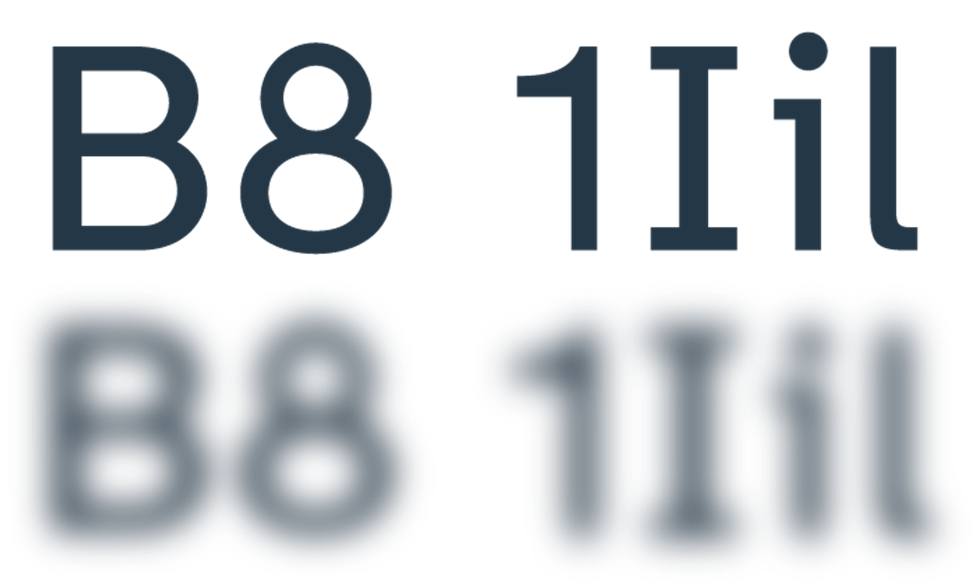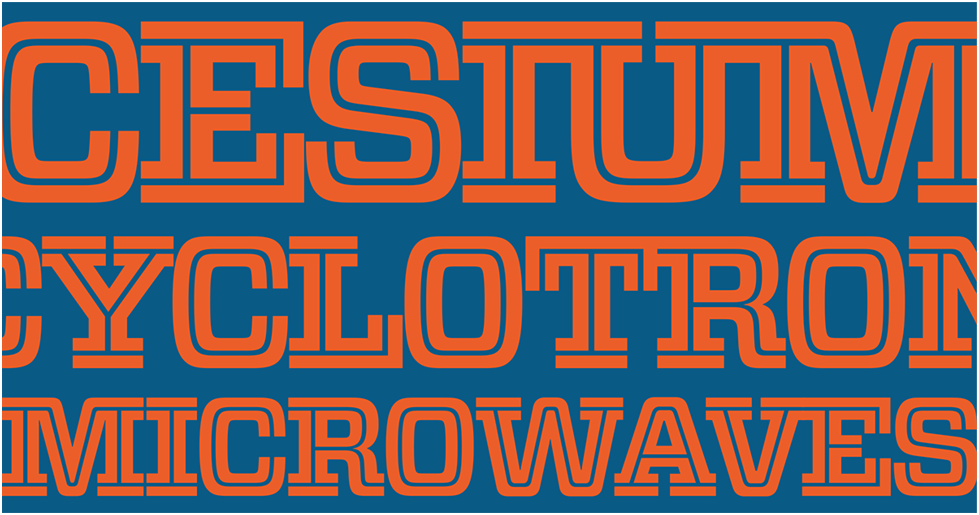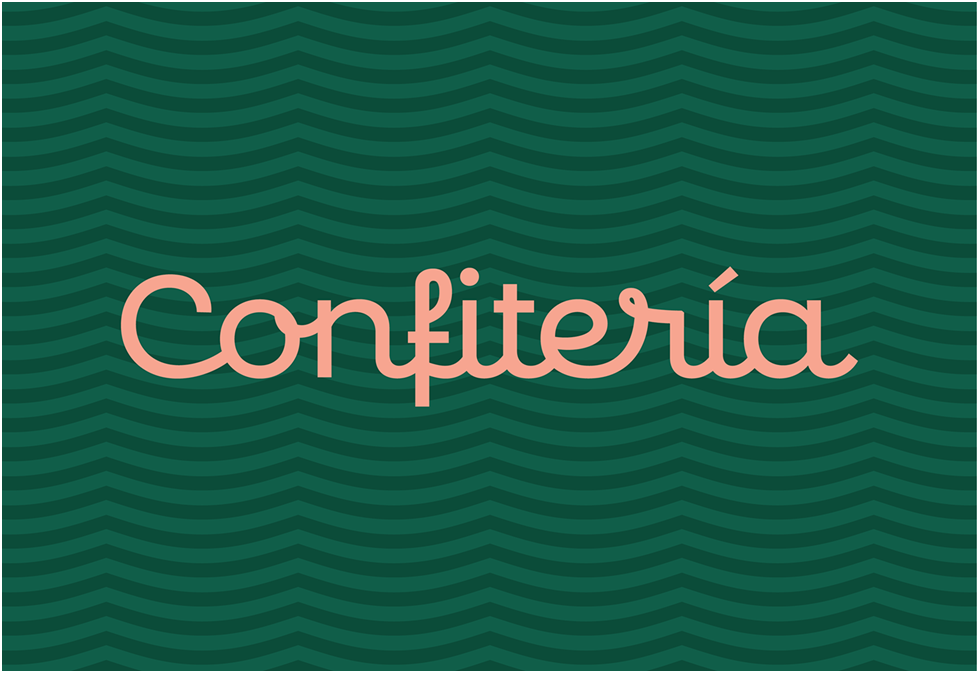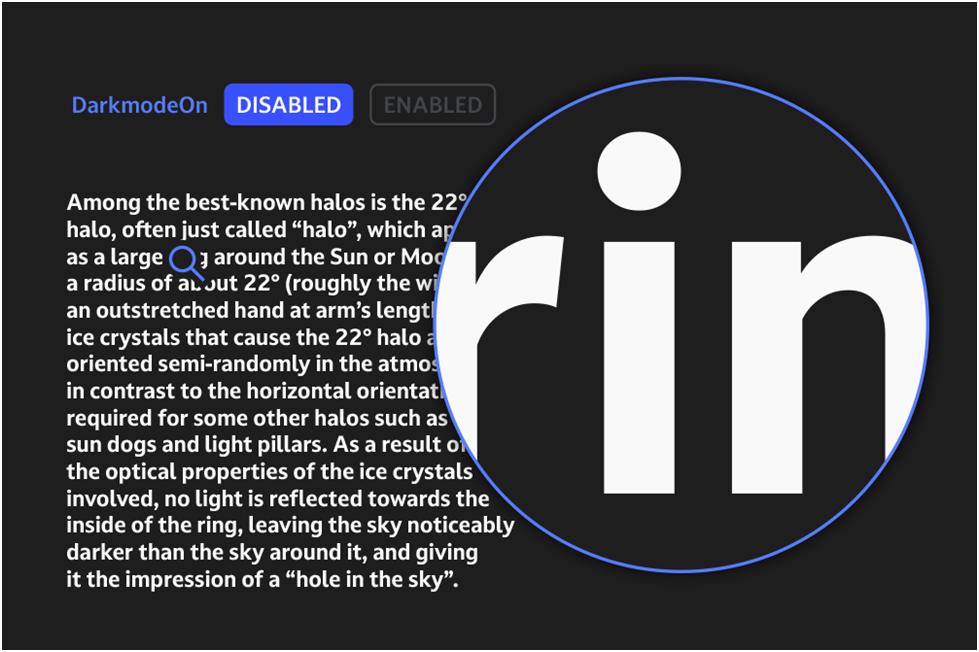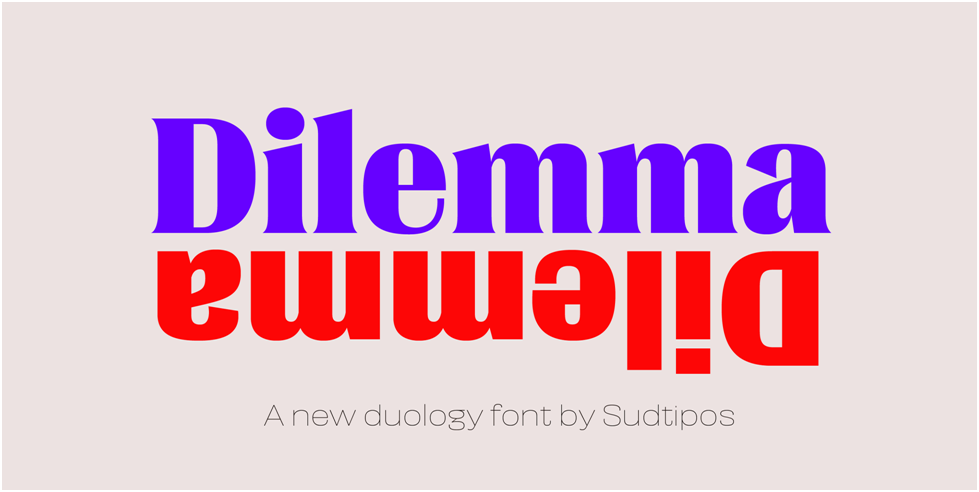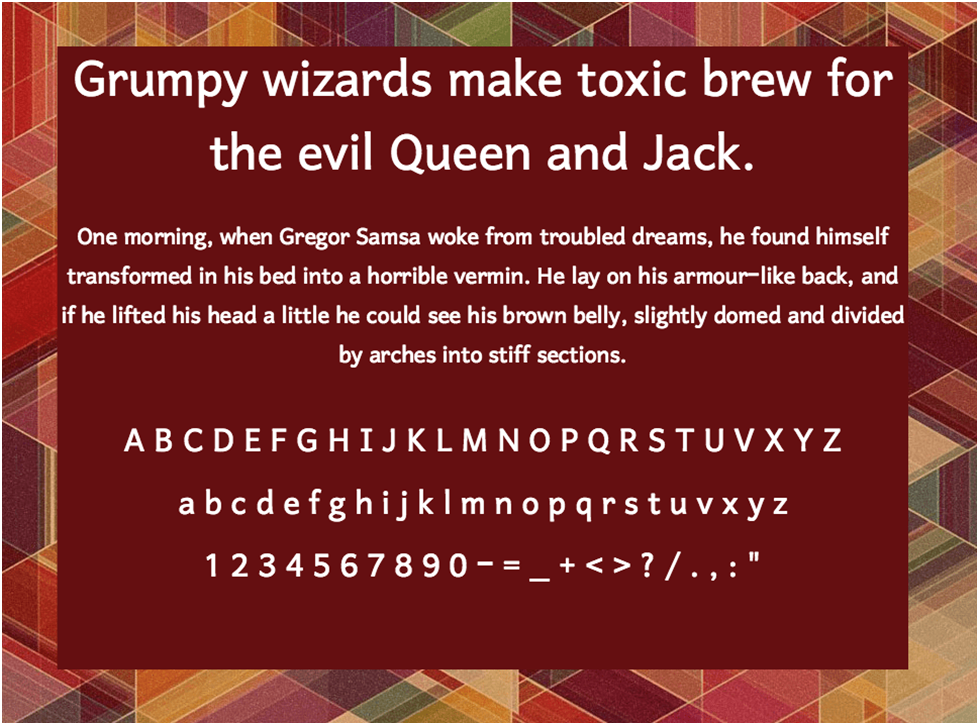
What is all this hype about typefaces, and what are typefaces, anyway? Typography doesn’t get the importance it should, although it plays a crucial role in giving a brand its unique voice. Moreover, typography helps create curiosity and interest in the brand and gives your marketing message the much-needed thrust.
What are Typefaces?
Most designers flounder when it comes to answering this question. Is it merely any font you find in the dropdown menu to select and get on with your designing gig? There is much more to typeface design than that. Typography is an art, and the flair one poses of positioning typefaces to create a meaningful and impactful piece of text.
It is not merely the designing of letters and characters which is a part of the process, it is a serious artistic business.
With so many types of typefaces to choose from, most designers get floored by the task. There are so many things to consider about a typeface when designing something, like selecting the point size, the spacing, the line length, etc., all of which need to be uniform throughout.
The importance of the arrangement of typefaces was realized by Johannes Gutenberg when he designed his printing press in 1450. That was a period when letters and characters (forged in metal) were arranged in perfect order to create a piece of text.
Fast forward today to a world of computers, and you’ll get a more comprehensive answer to the question “what are typefaces?” There being several types of typefaces and scalable computer typography, there’s a whole range to choose from.
What makes Typography so Critical?
We live in a world dominated by typography. It touches almost every part of our daily life. Be it your phone, electricity bill, the giant billboard in the neighborhood, your Styrofoam coffee cup, or the email or blog post you read recently. Even the slightest change in a font can make a whale of a difference as far as the effect is concerned.
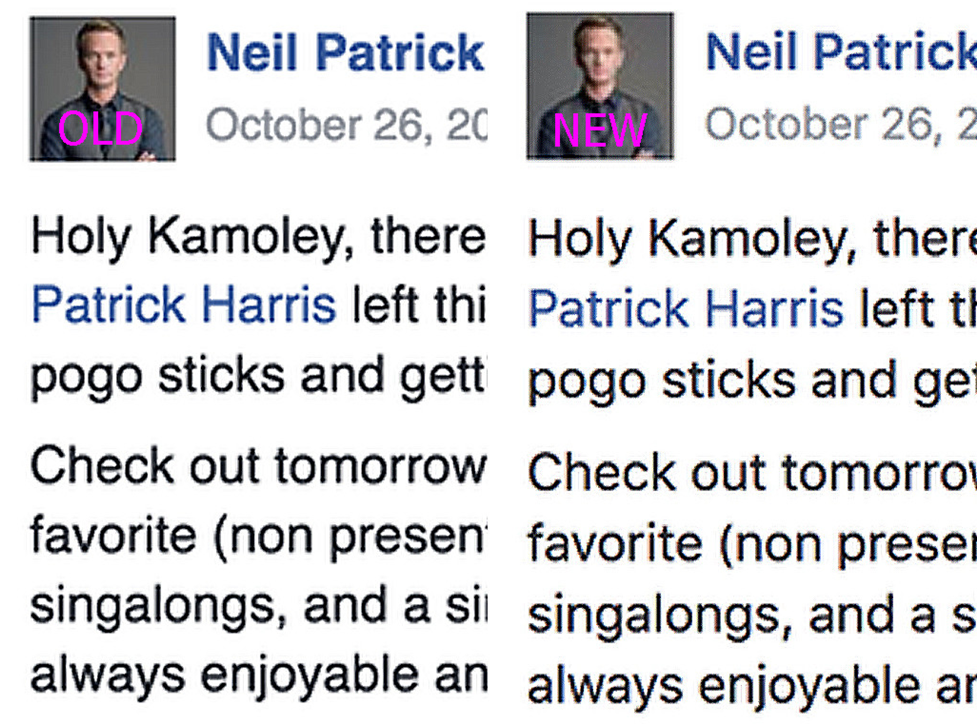
A good example is Facebook, which started using a new font called Geneva. This font is identical to the original Helvetica but thinner and lighter. However, the difference was noticeable. Now we know why minor details matter.
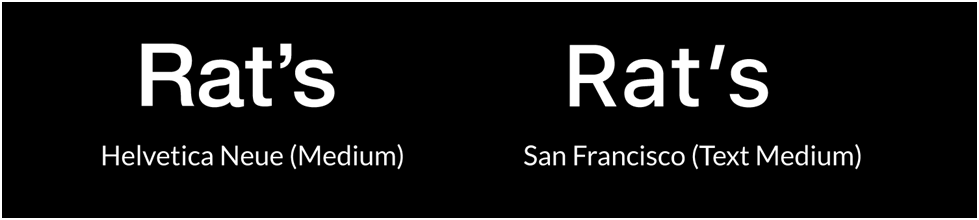
Apple did the same thing by changing its default font, the slim Helvetica Neue, to San Francisco, a font they developed in-house. It may be challenging to detect the difference that is too subtle for an untrained eye. The USP of this font is its legibility on the much smaller phone screens. And with more people using hand-held devices today, it was probably a smart move that helped Apple sell quite a few phones worldwide.
It is worth mentioning that Steve Jobs took a course in calligraphy while at college. It probably gave him the idea of using multiple typefaces (proportionately spaced) for Mac.
What’s the Difference Between Typeface and Font?
Did you know that typeface and font mean two different things? Typographer Nick Sherman makes a subtle comparison between typeface and font. While he compares the former to a song, the latter he associates with an MP3. While one is a work of art, the other is merely a delivery tool.
The same rule applies to typography. When you say typography, you are describing a work of art. It is a design term used to describe the look and feel of a design. A good example is the Helvetica typeface.
On the other hand, a font is a collection of letters and characters represented as a symbol. Hence, while Helvetica is a typeface, Helvetica Bold, Light, Obscure, etc., are fonts. While you can say ‘this typeface adds character to your design,’ you must say ‘use 10pt font size to ensure it fits in the box snugly’.
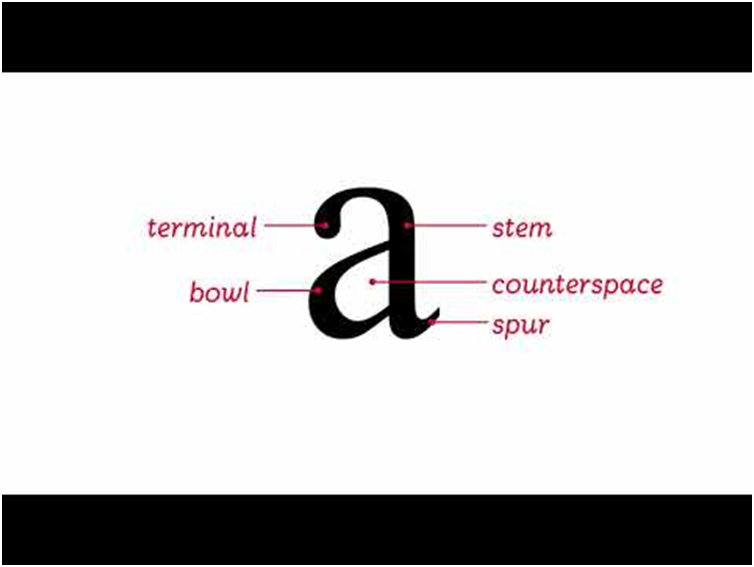
What’s in a Typeface?
It can be exciting to understand the anatomy of a typeface. A letter has many parts, each denoted by a special term akin to the bones in the human skeletal system.
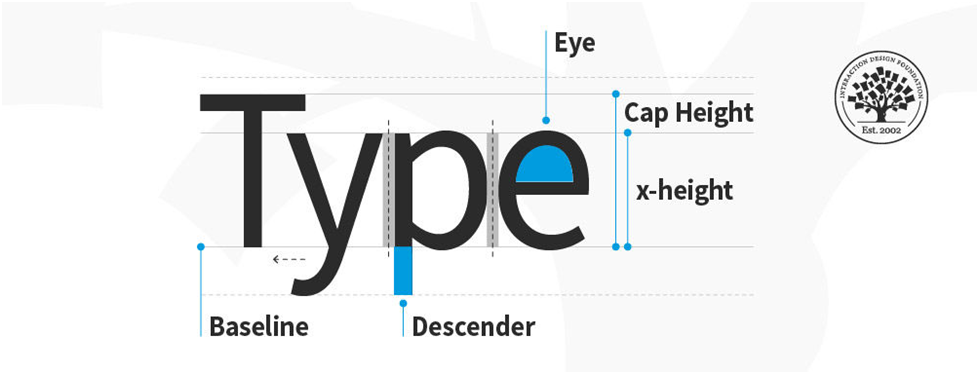
- Baseline is where all the letters sit.
- Cap Height is the distance between the baseline and the top of the letter in caps.
- X-Height is the portion located between the baseline and the cap height; in other words, it is the height of the letter in lower case.
- Bowl (in the first figure ‘a’) is the curve in the letter ‘a’, and in other letters like ‘d’, ‘b’, ’o’ ,’B’, and ‘D’.
- Descender is the point of the letter falling below the baseline
- Ascender is the point of the letter extending beyond the mean line of a font (top portion of ‘h’)
- Terminal or ball terminal is the end of the stroke ending with a circular stroke
- Stem is the vertical stroke found in letters like B, D, H, F, a, etc.
- Spur extends from the curve of a letter, e.g., C and S. They may appear at the top or bottom.